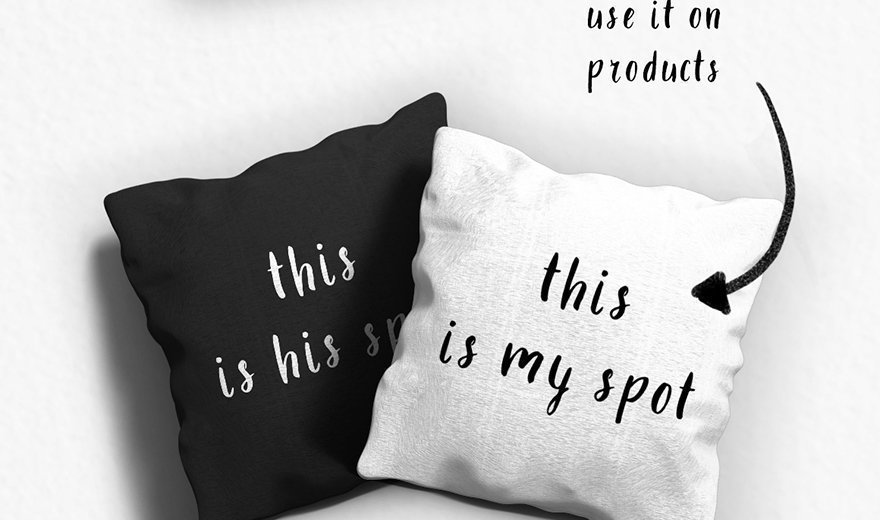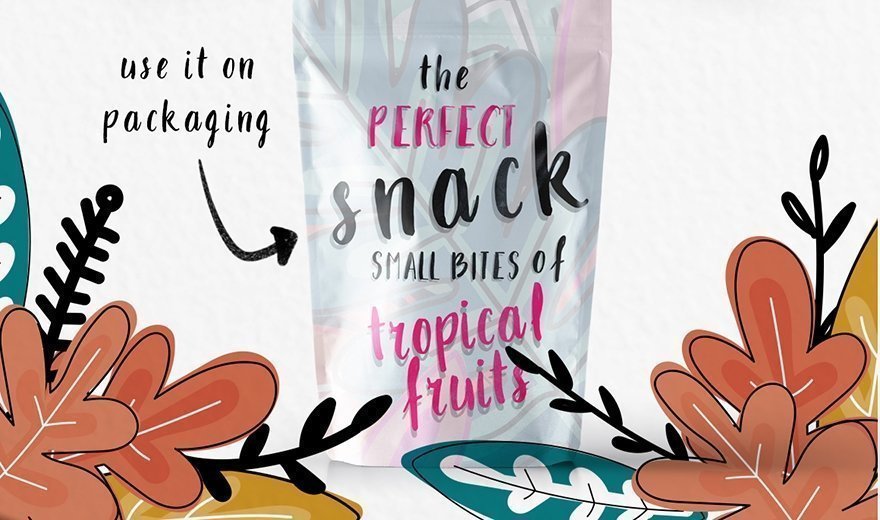
Takhie is a free multilingual brush font. Takhie is a 100% hand drawn decorative font with which you can achieve a handwritten-type lettering feeling. This free font has a really nice flow so you can use it in a large text if you want to give them a touch of personality. This typeface offers you uppercase, lowercase, punctuation marks and numbers. In addition, it supports multilingual characters for Latin and Greek.